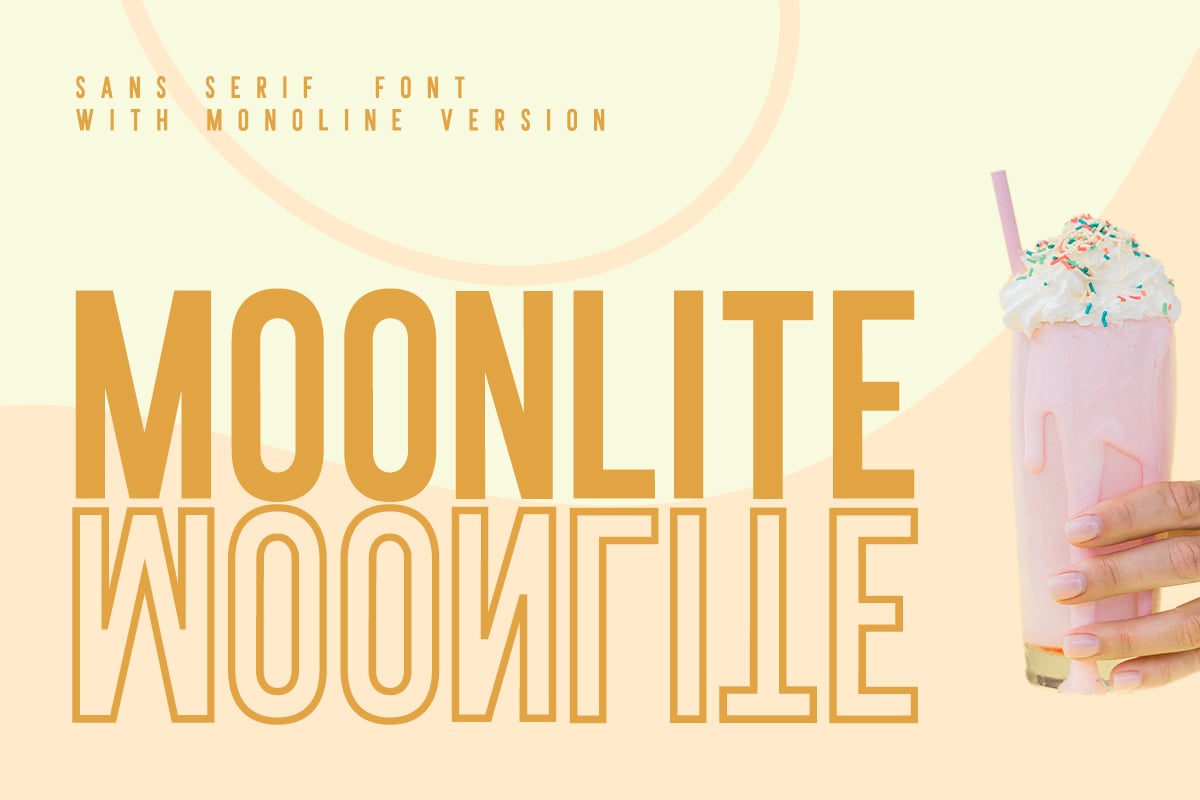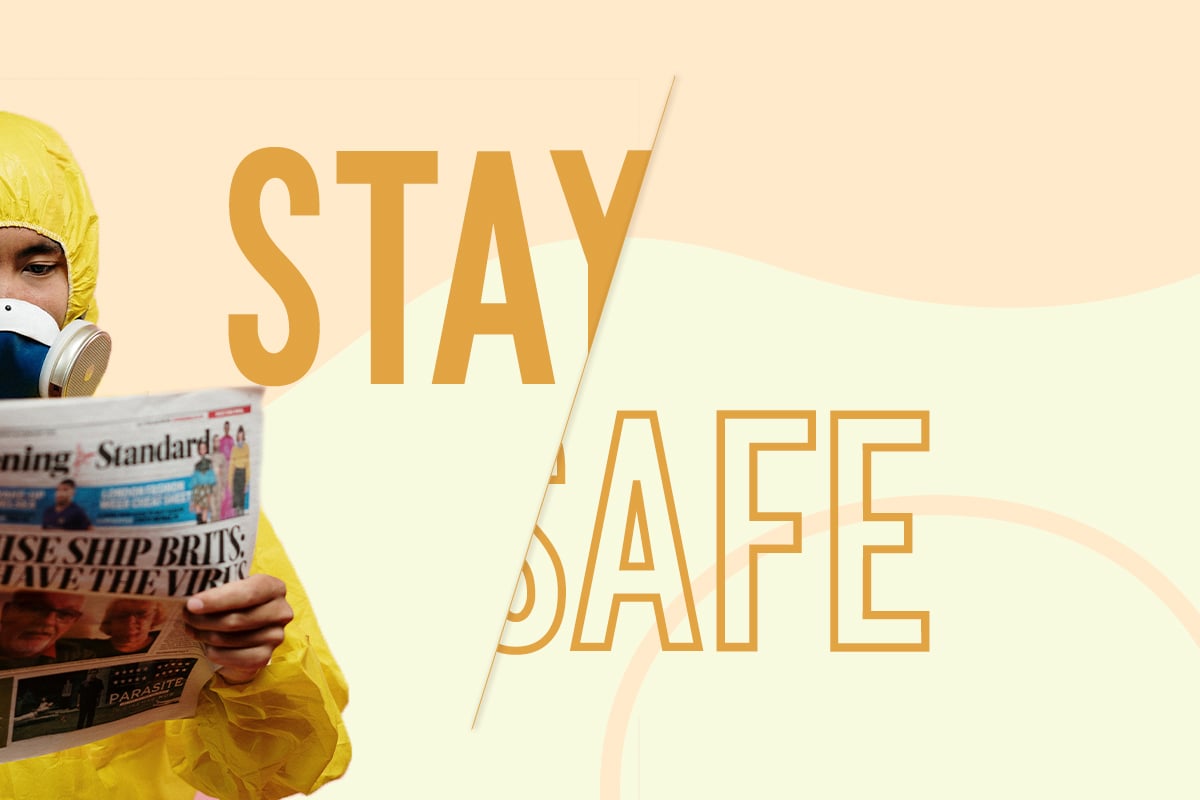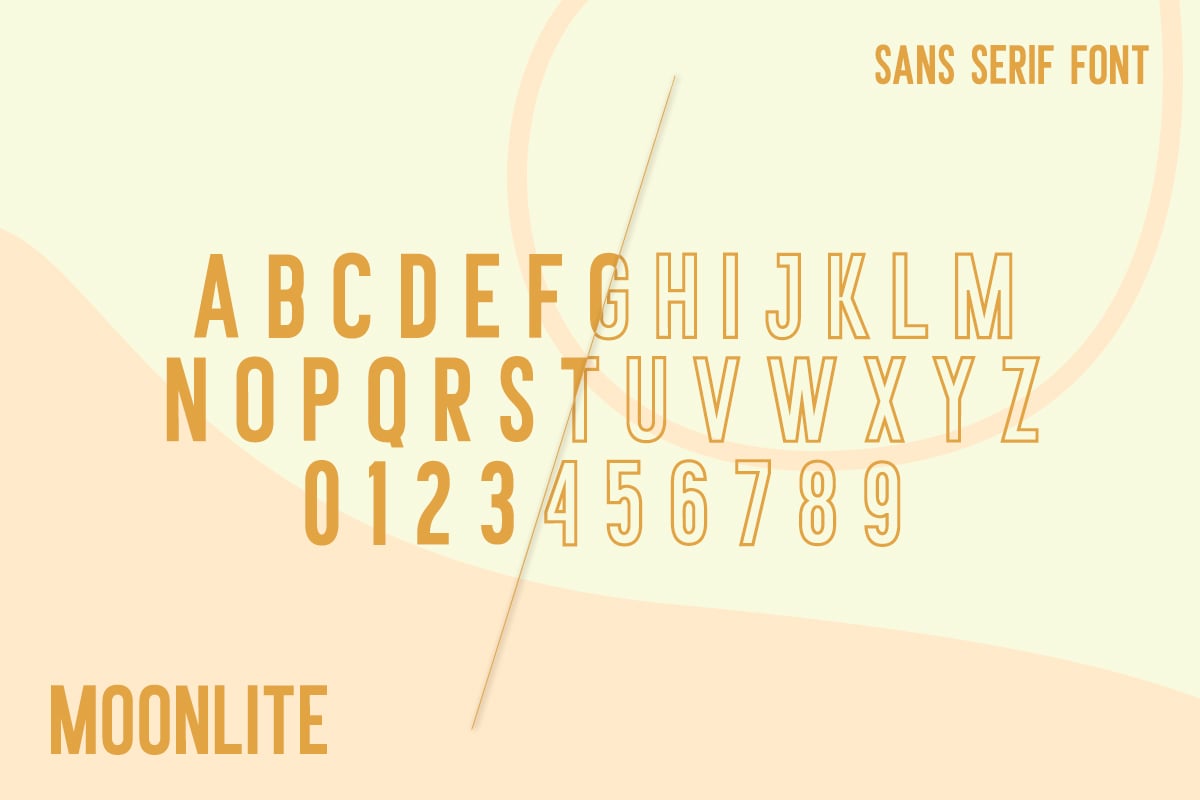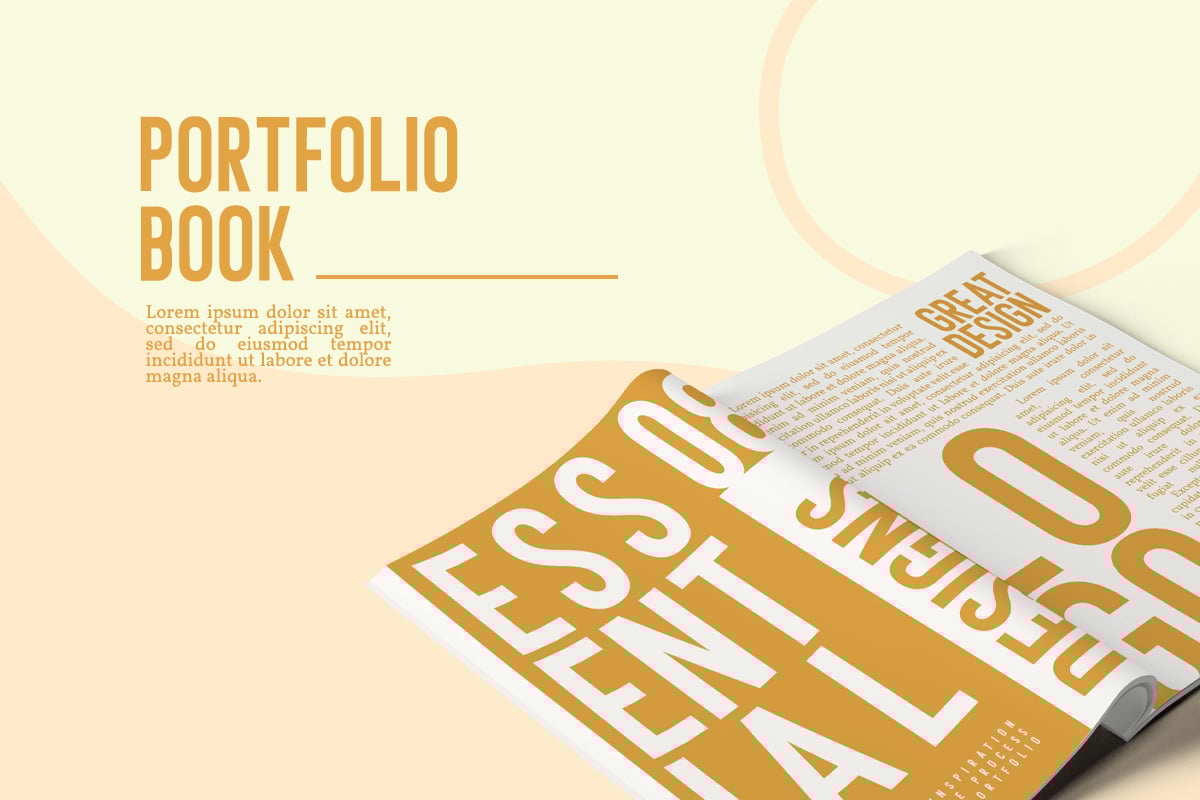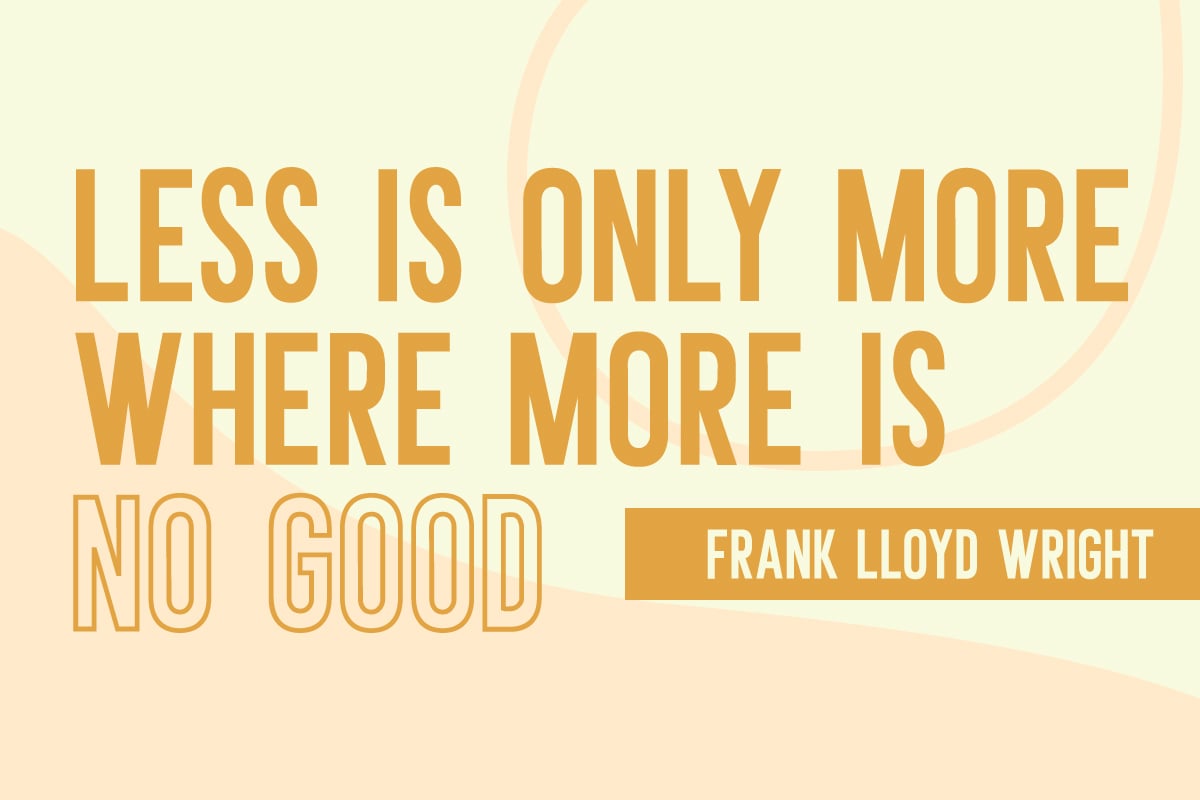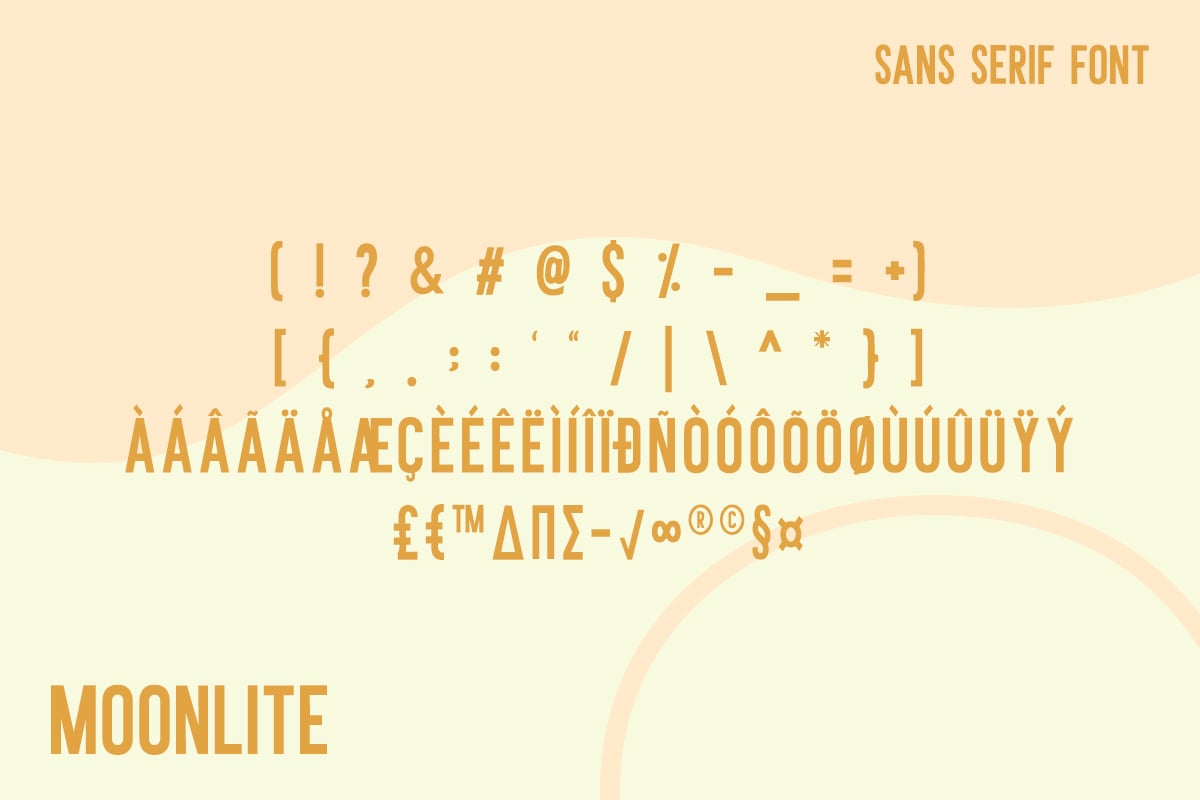
MOONLITE – SOLID & OUTLINE SANS FONTS
Moonlite is modern display sans font. Made for any professional project branding. Every letter has a unique and beautiful touch.
available with outline version.